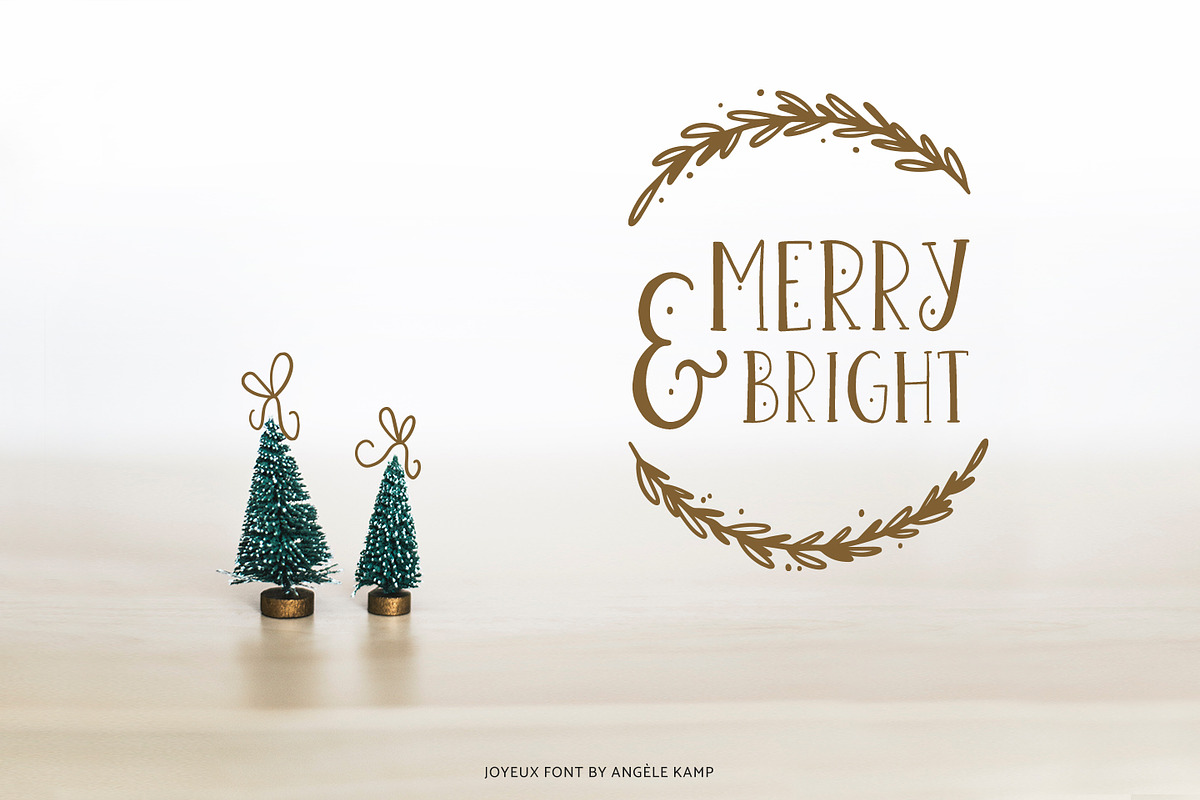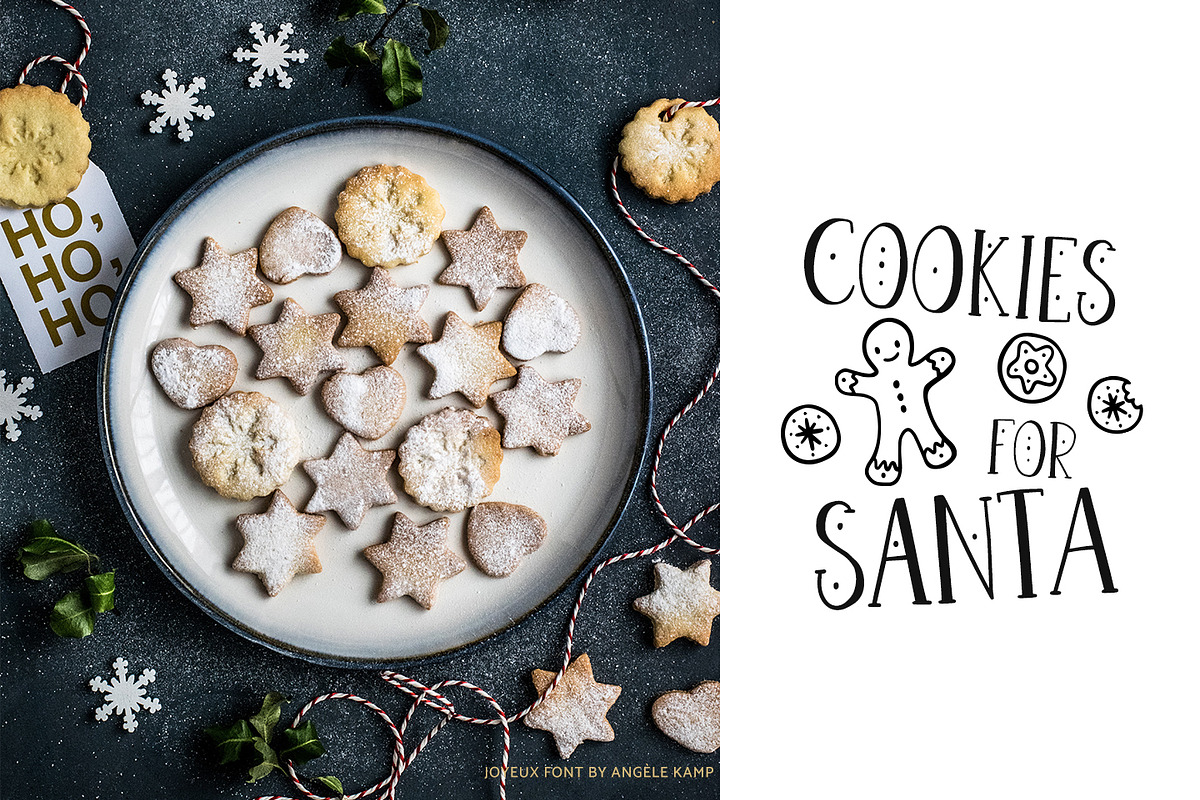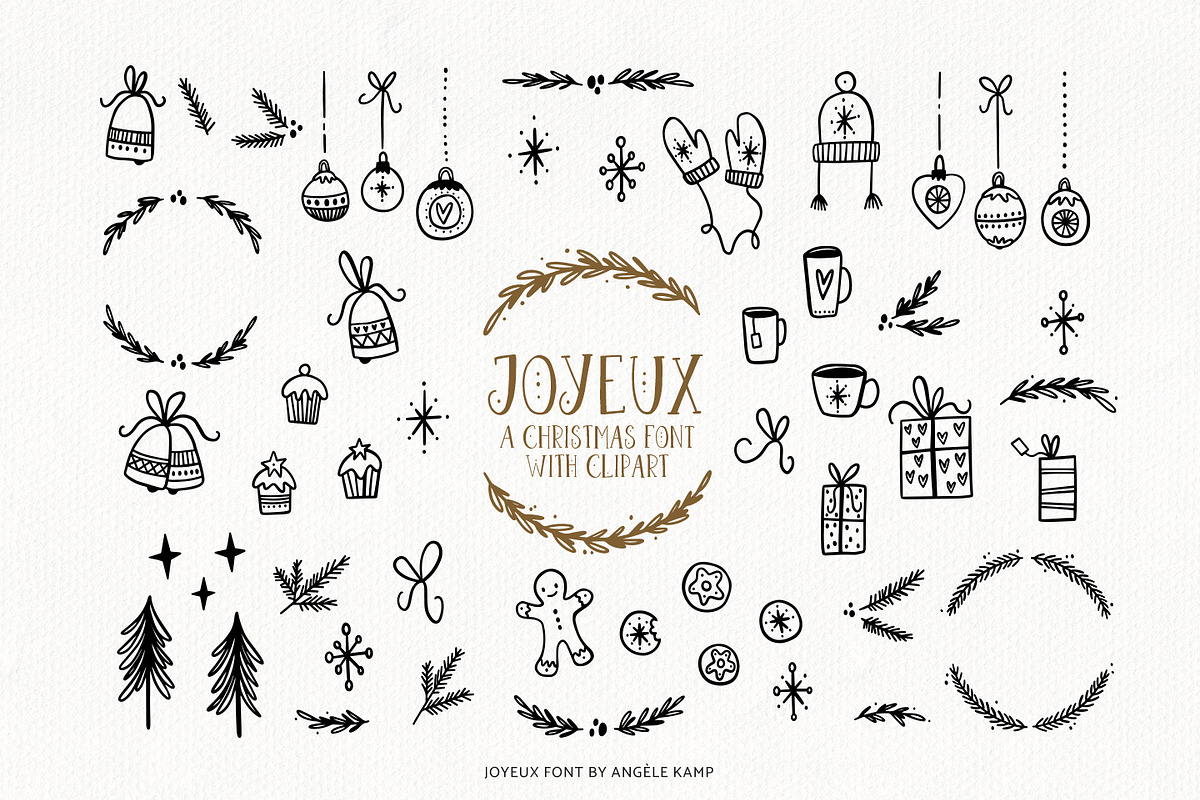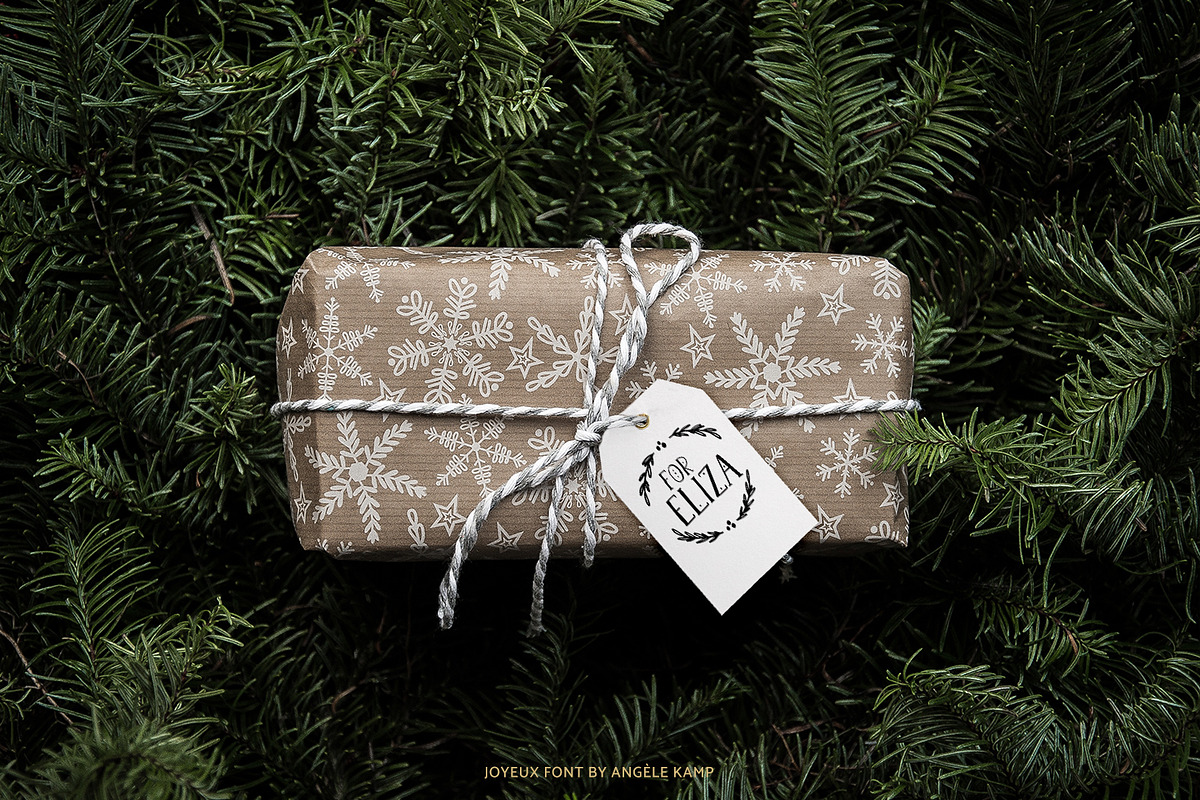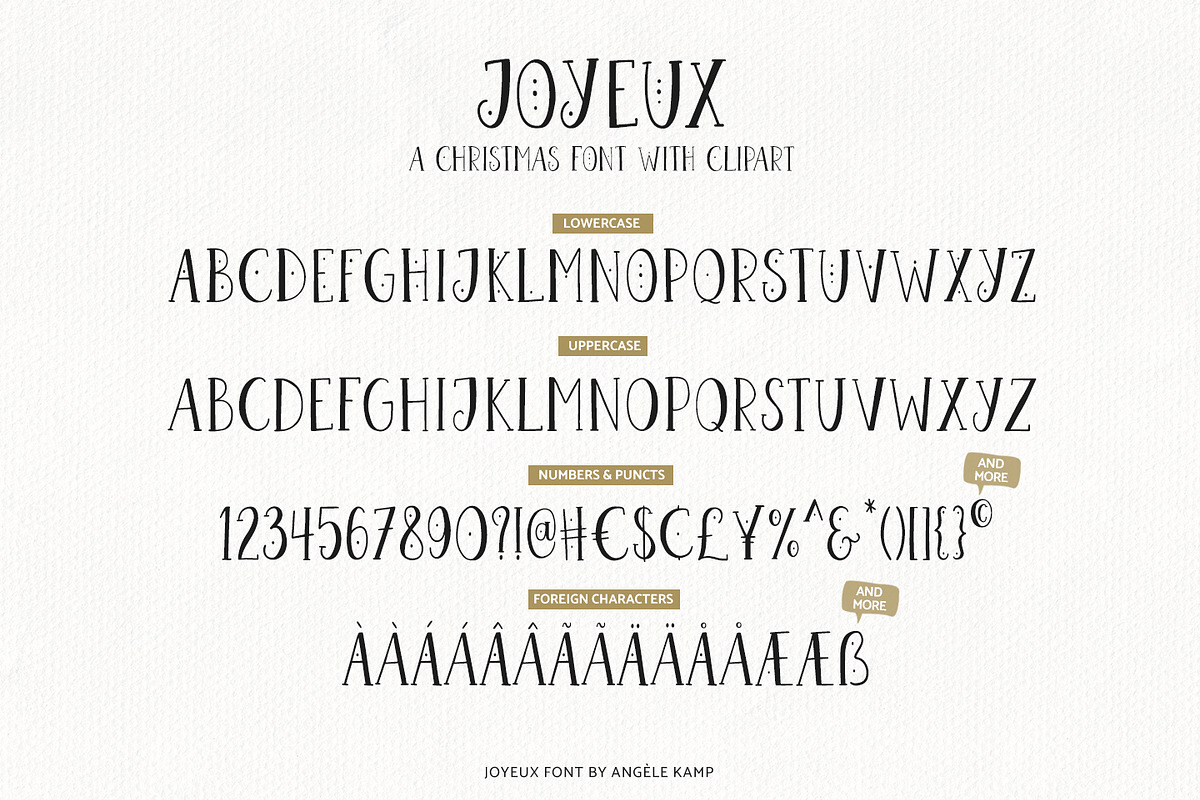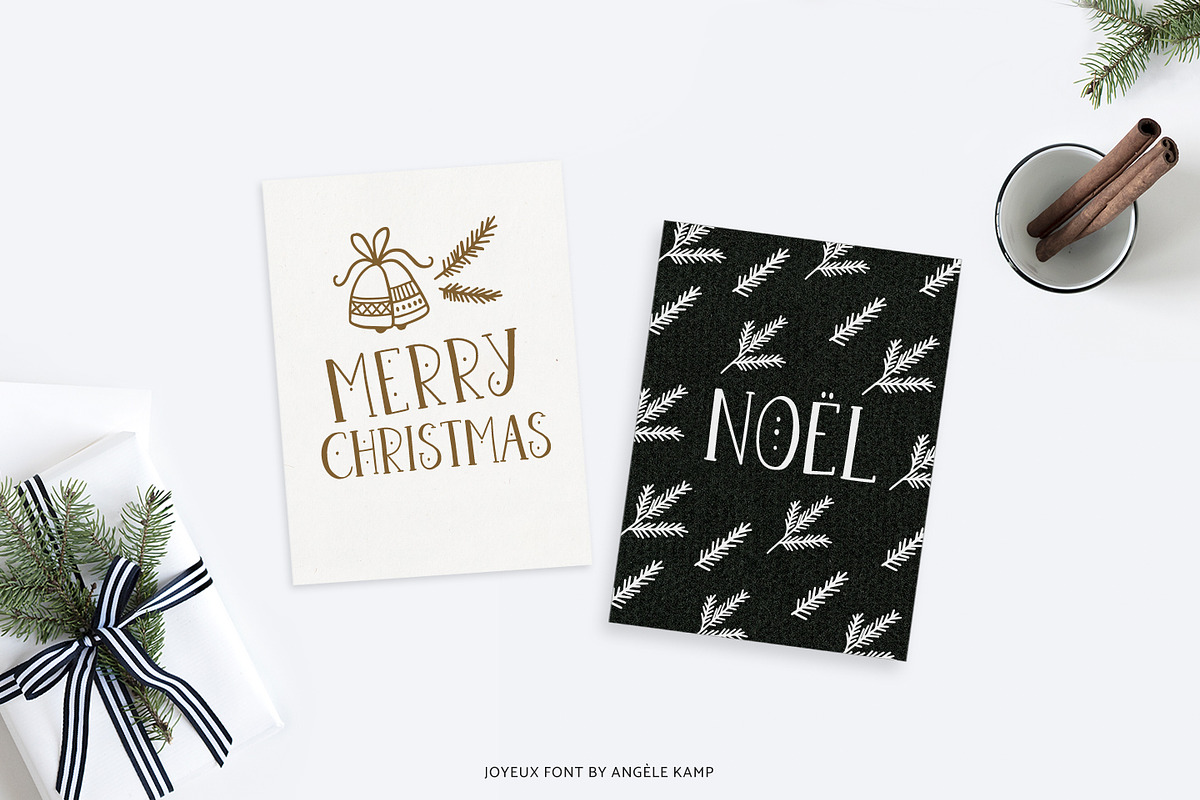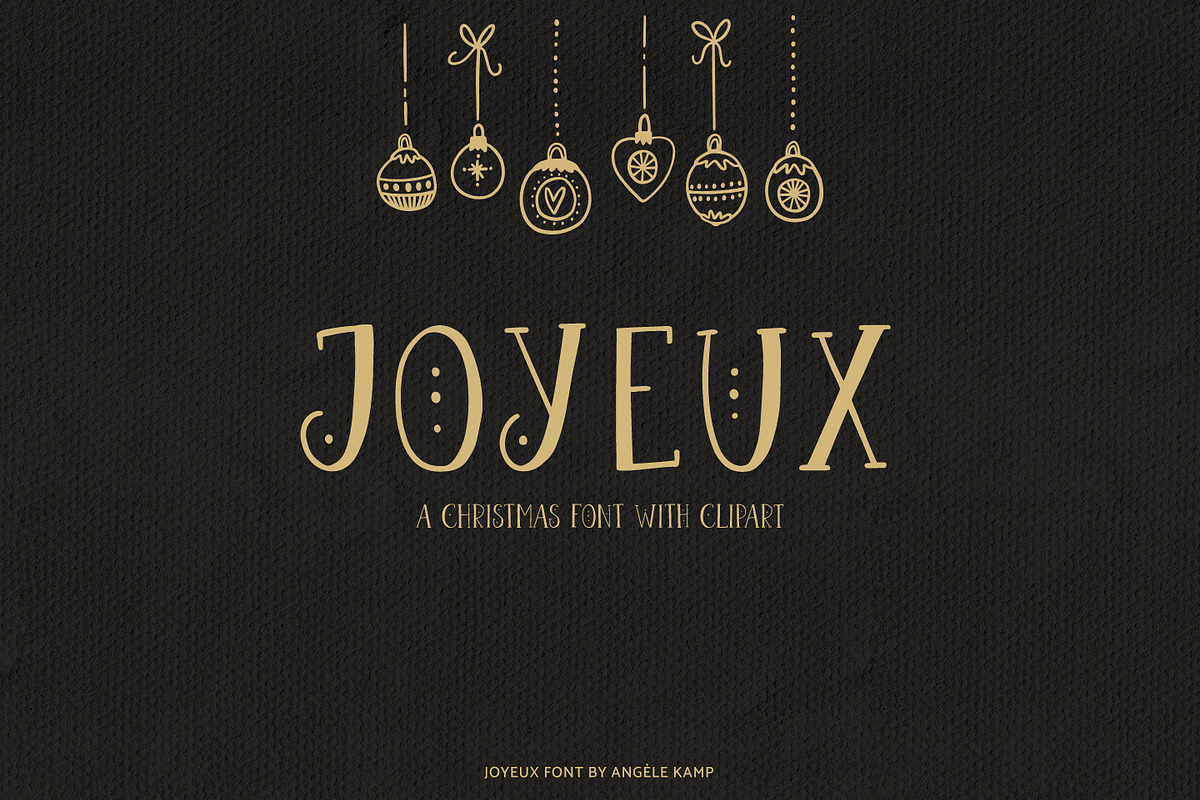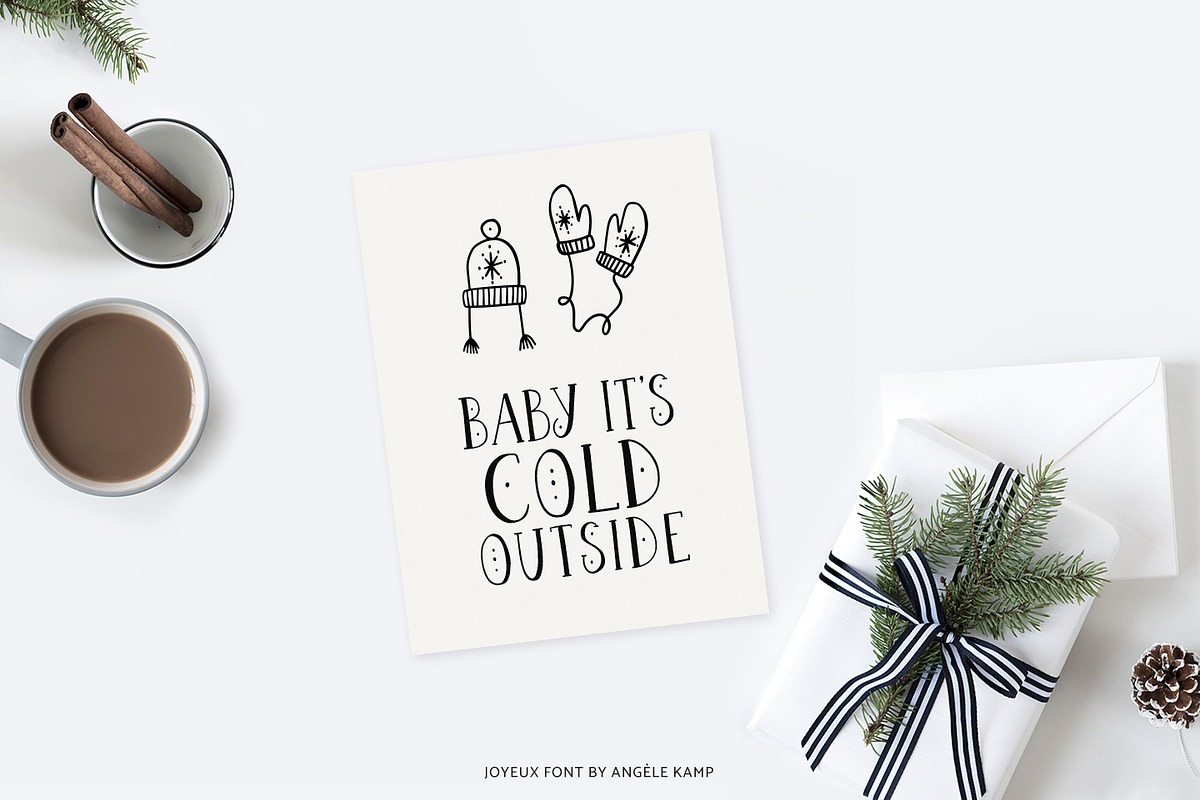
Joyeux Christmas font & clipart
Joyeux is a font family of an all caps font and a dingbat font with 52 cute clipart illustrations which will make crafting so much fun.
Joyeux Christmas font & clipart by Angele Kamp fits naturally into Branding, posters, packaging, typography.